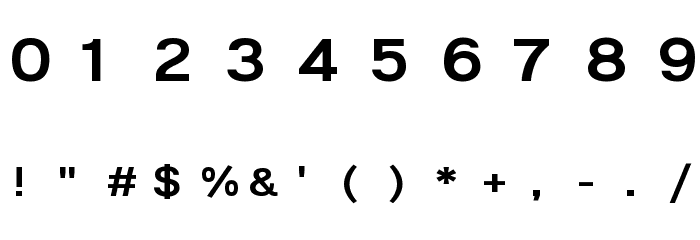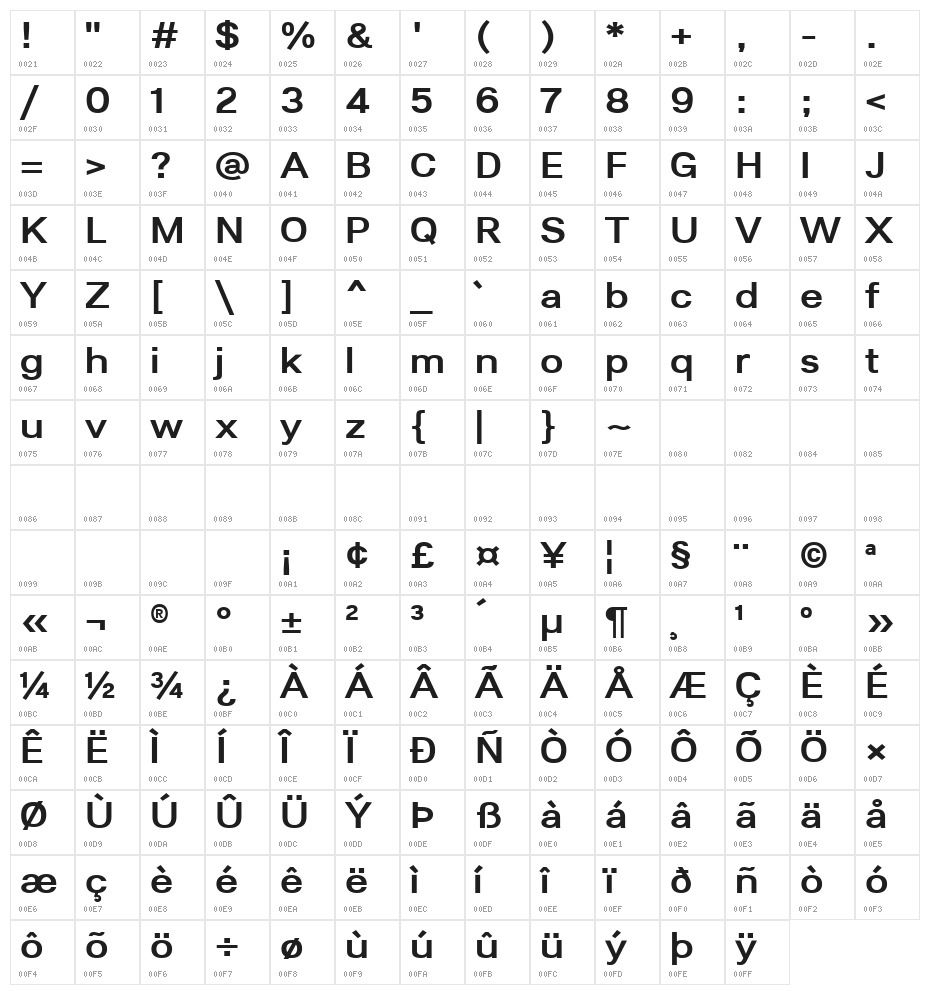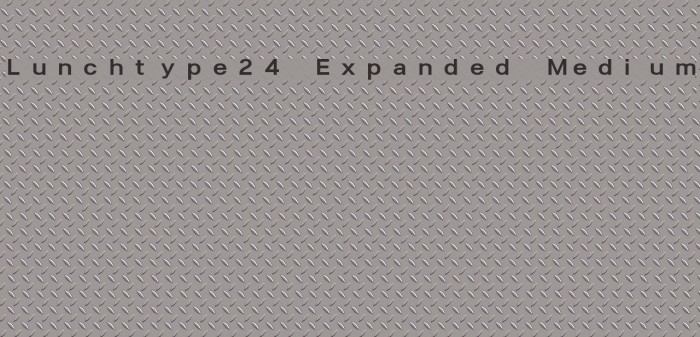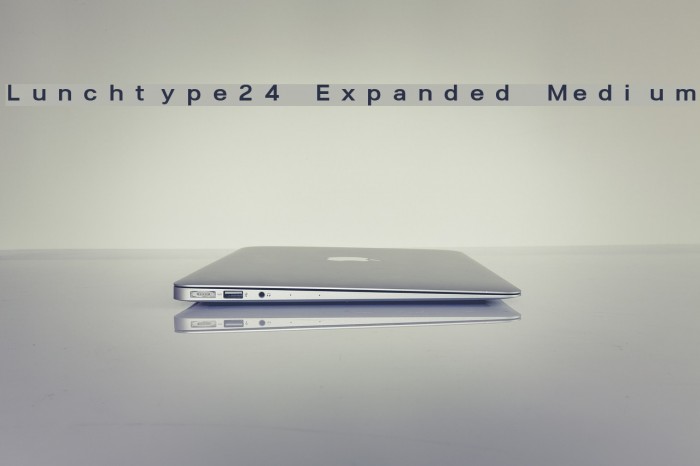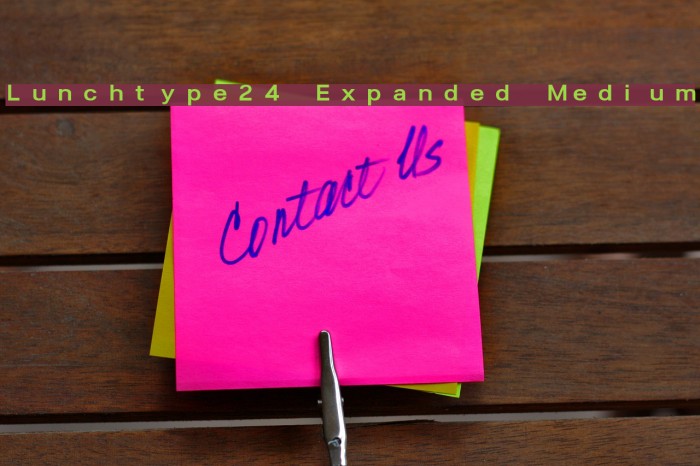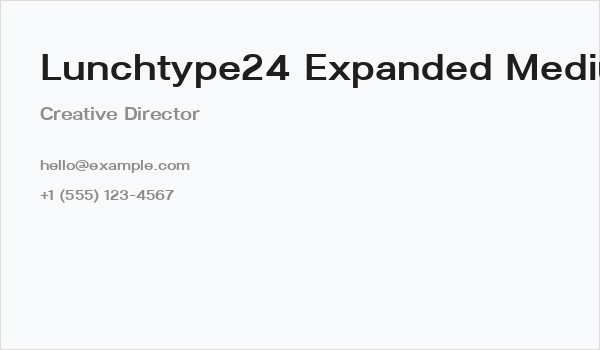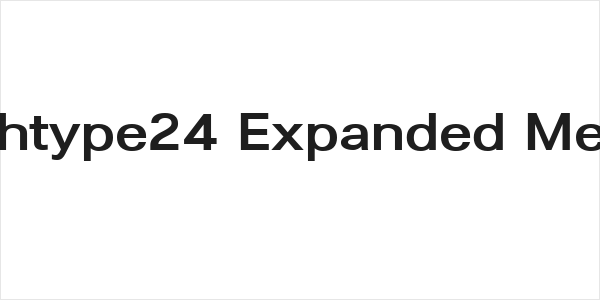
Lunchtype24 Expanded Medium Font
Lunchtype24 Expanded Medium Description
This typeface features a clean and modern sans-serif design with a distinctly expanded width. The characters are evenly spaced, providing a balanced and readable appearance. The strokes are uniform, contributing to a medium contrast that enhances legibility. The uppercase and lowercase letters maintain a consistent style, with rounded edges that soften the overall look. The numerals are clear and bold, making them stand out effectively. Special characters are well-integrated, ensuring versatility in various applications.
| Proposed Projects | Ideal for branding, advertising, and digital interfaces where clarity and modern aesthetics are essential. |